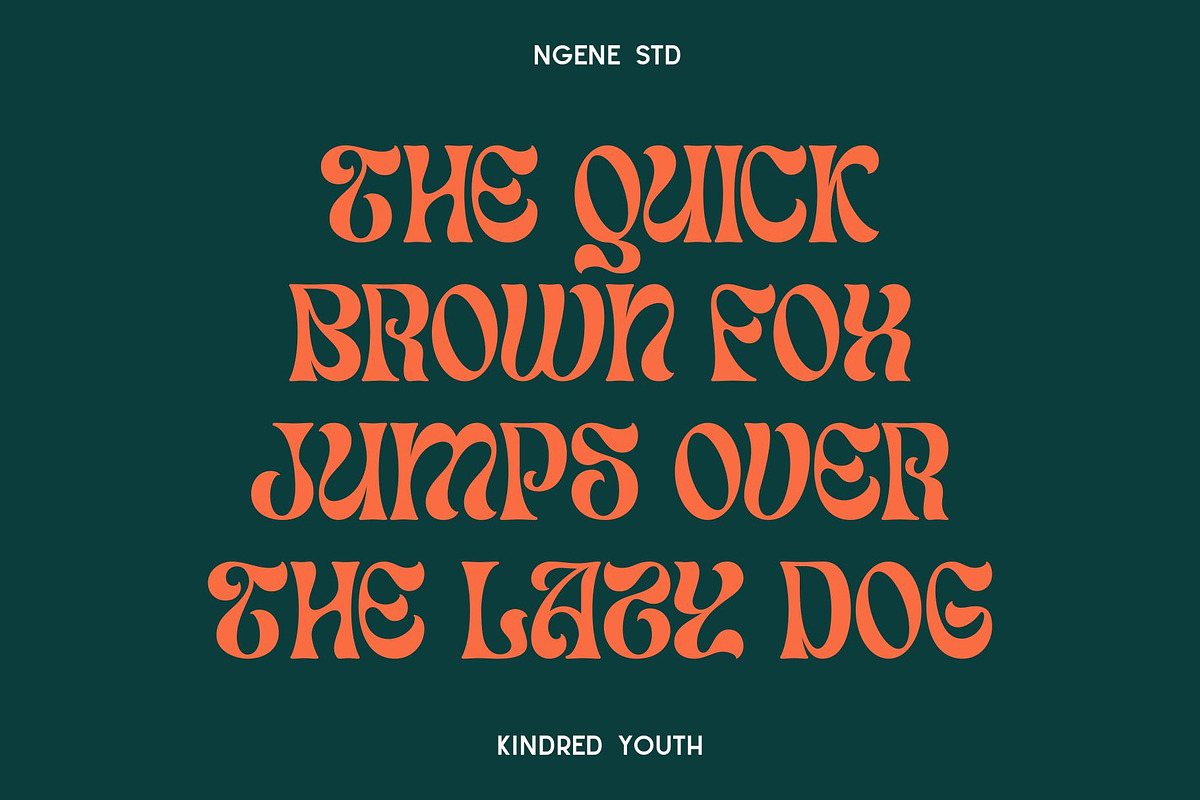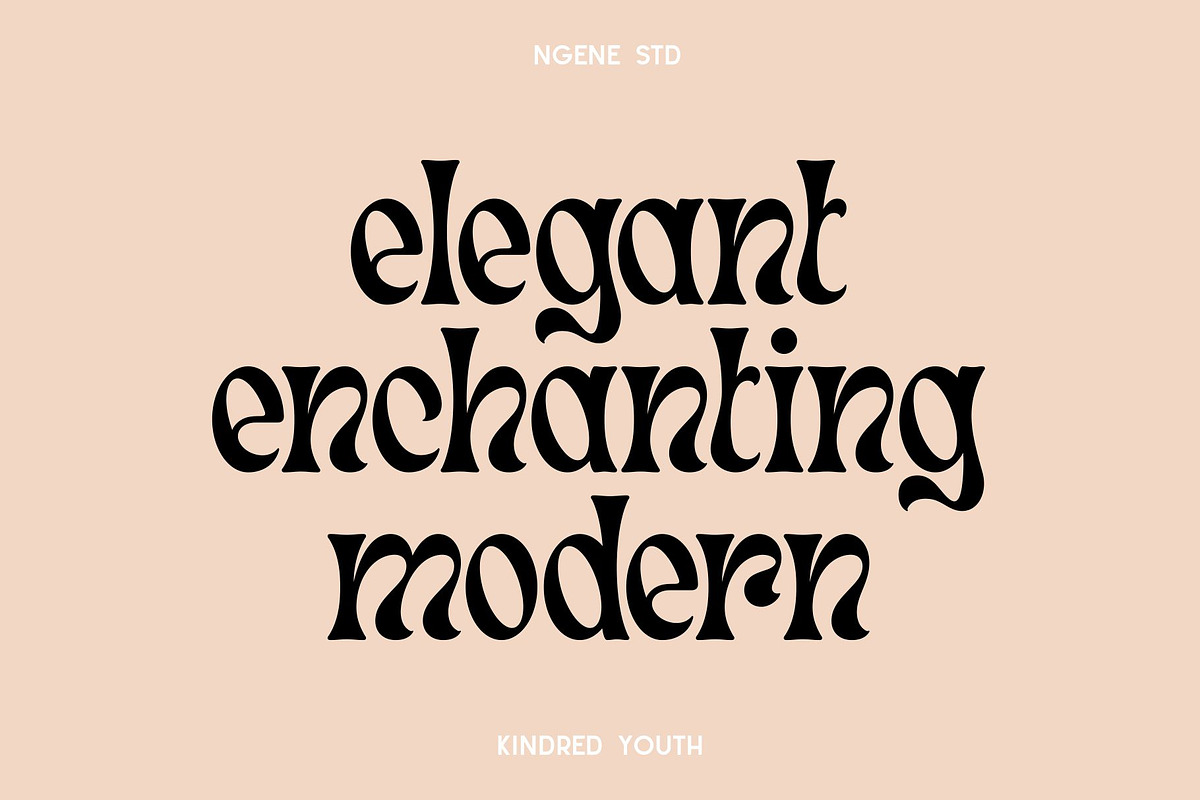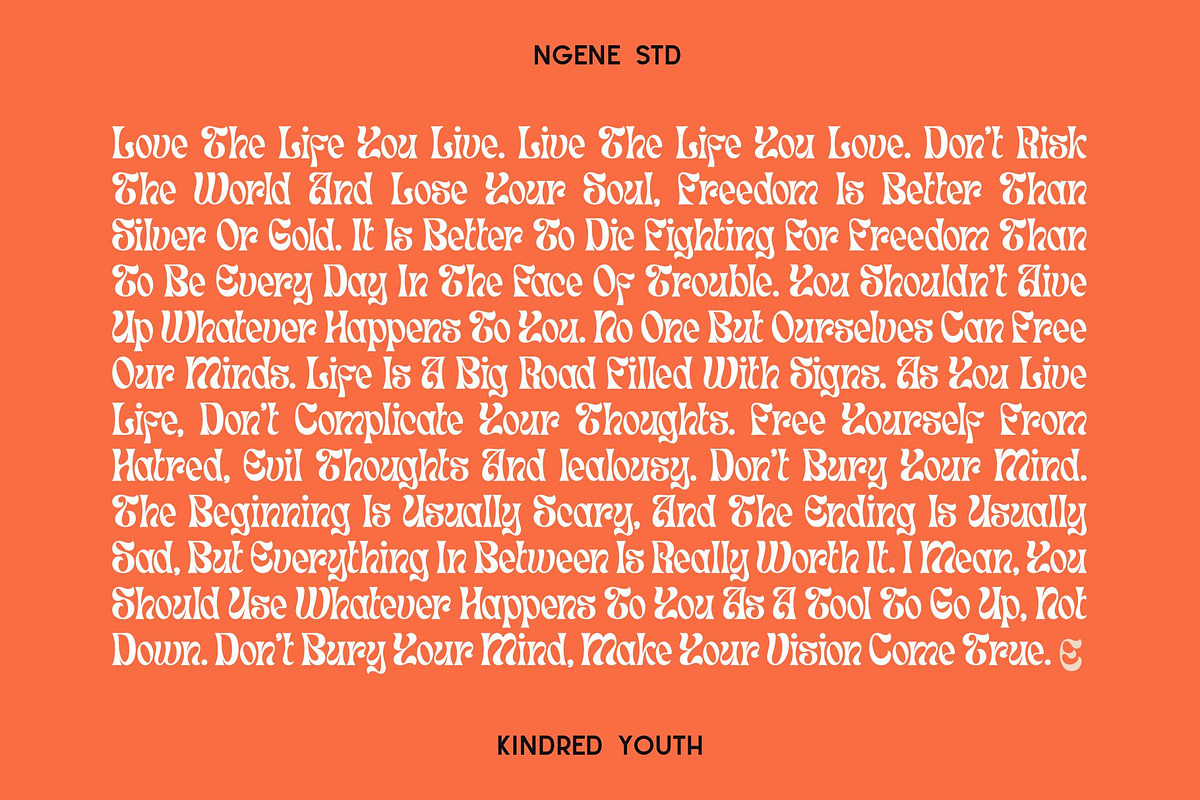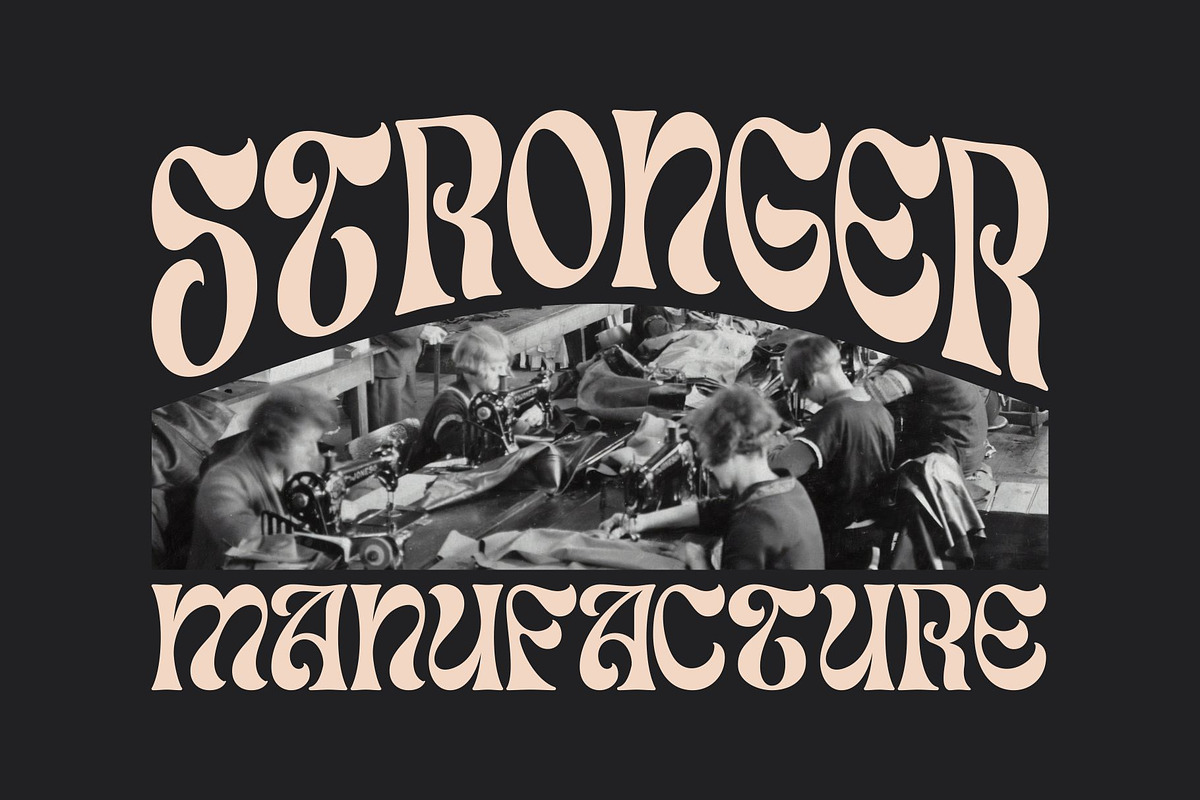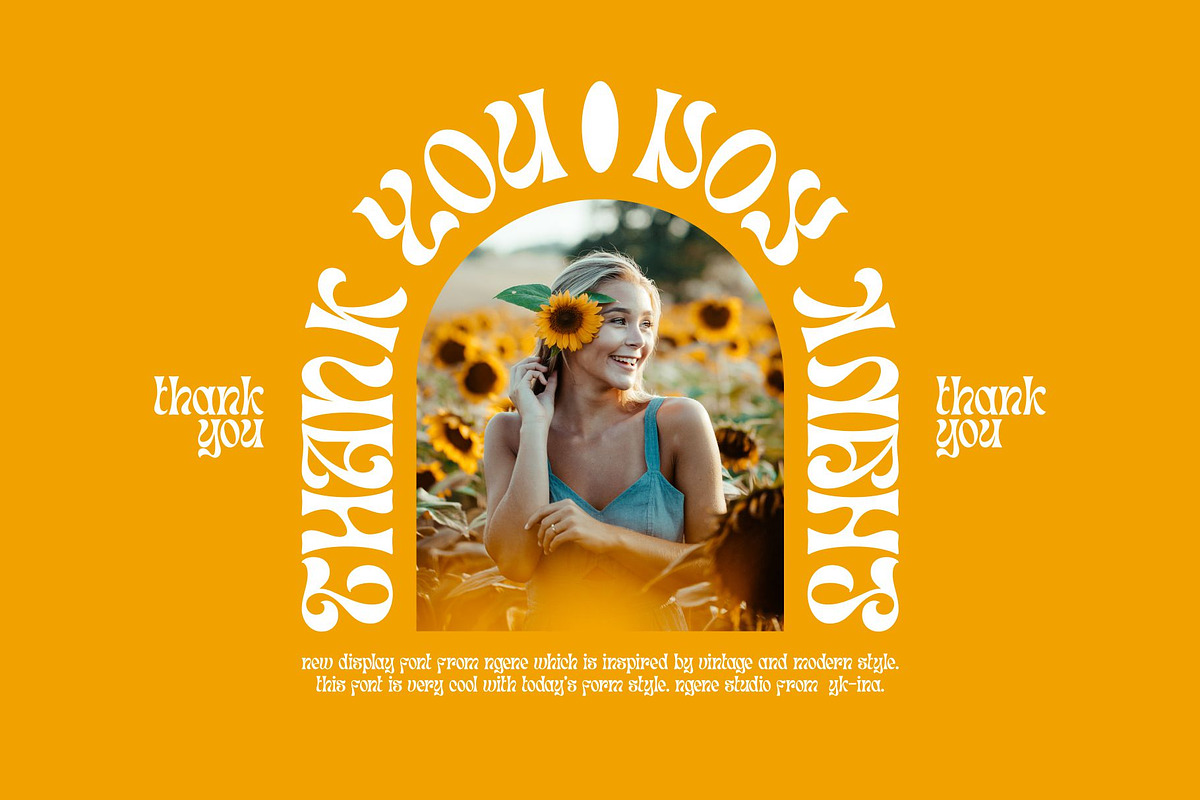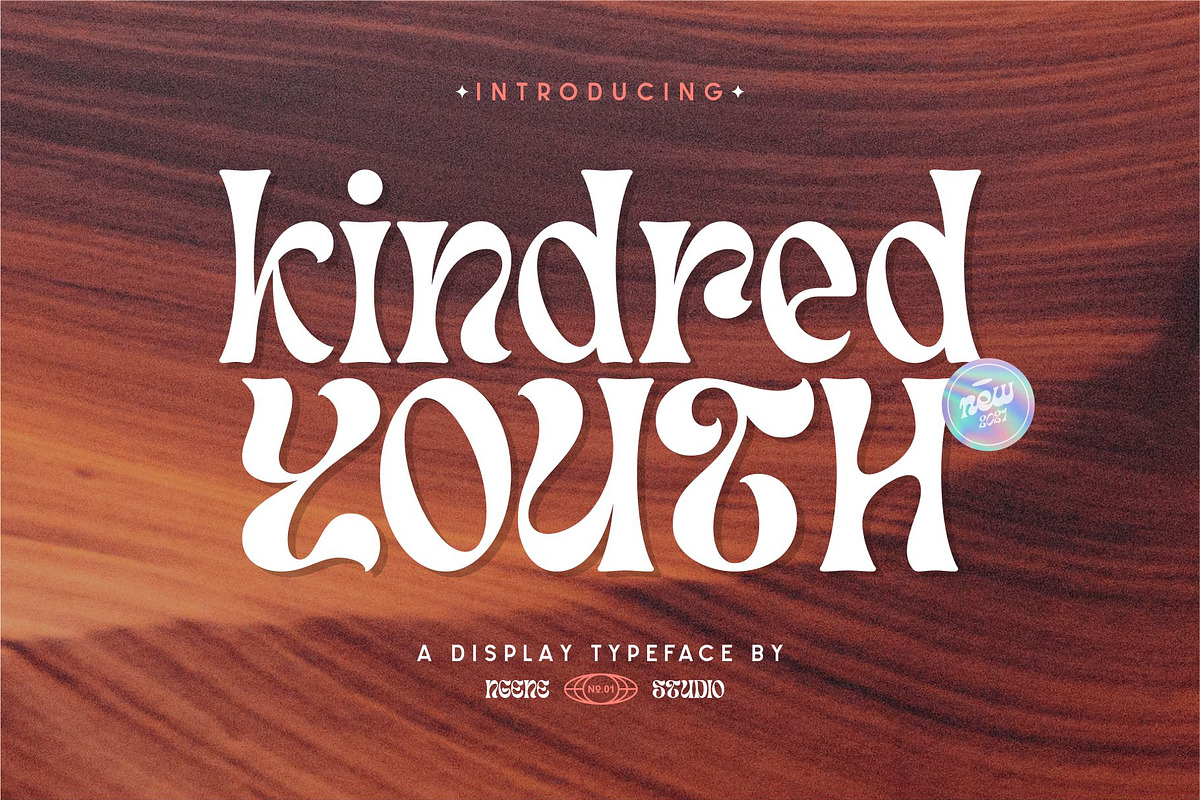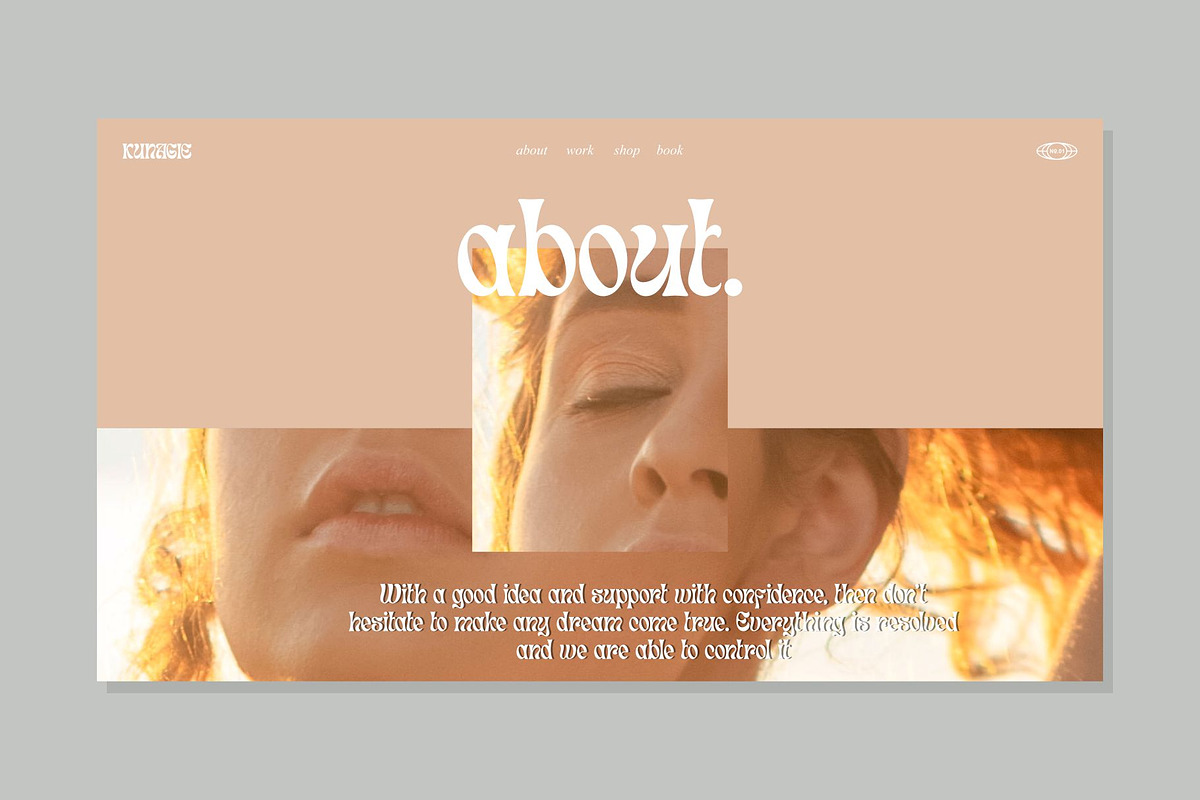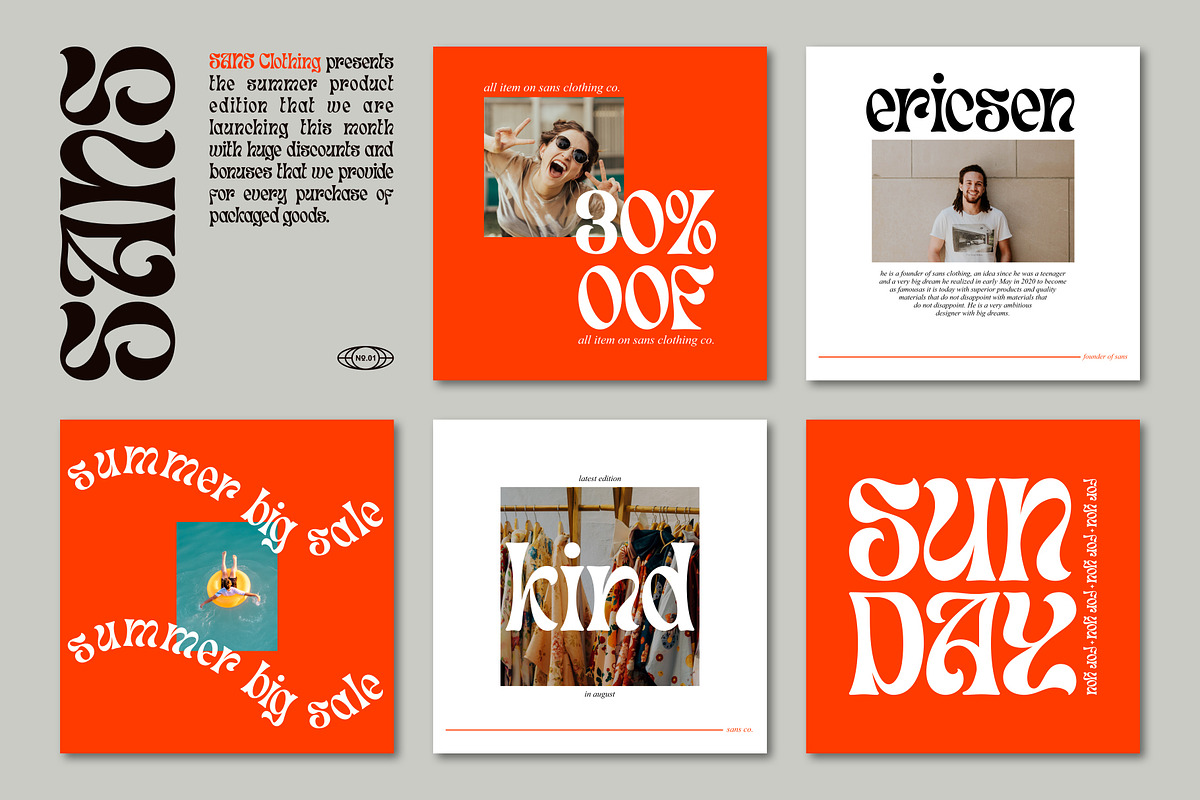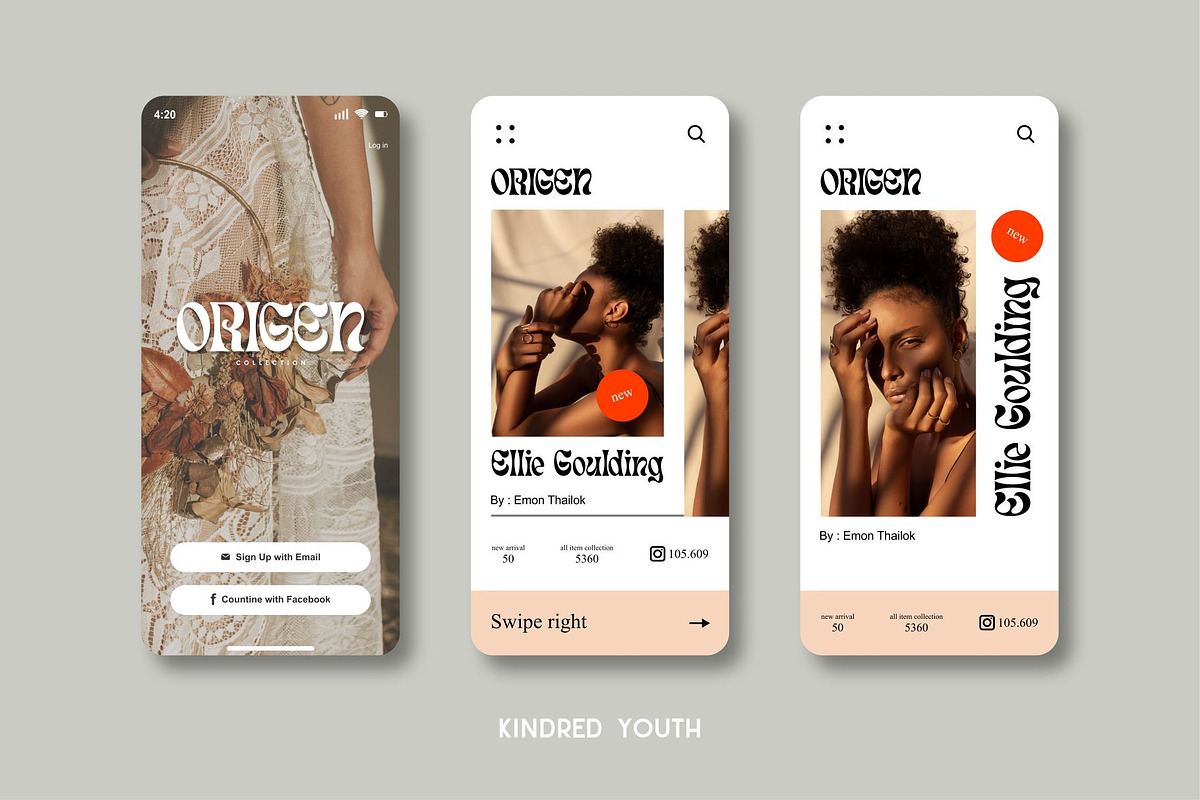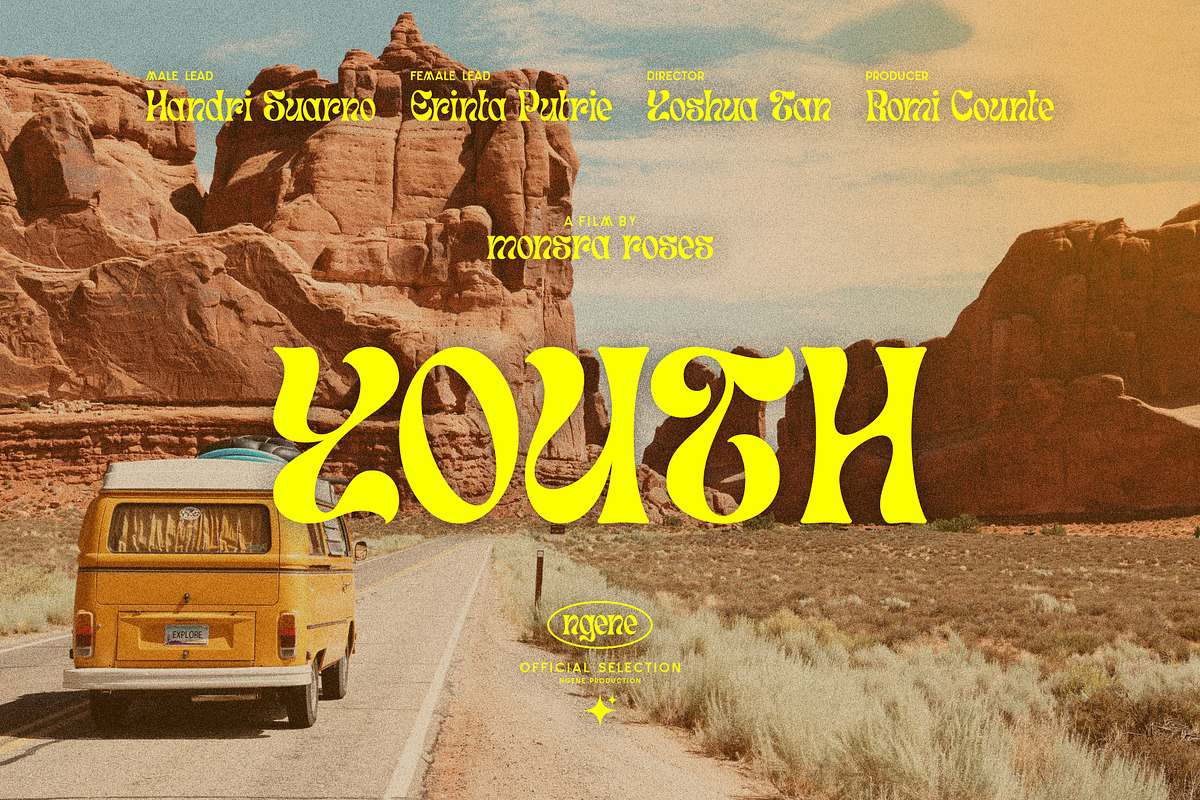
Kindred Youth
Kindred Youth font display from Ngene Studi which is inspired by the vintage style and the current modern font style, this font is perfect for beautifying your appearance in the form of logo fonts, lettering, tickets, instagram stories, labels, book titles and others.
You will be impressed with this new font style, this font also has multilingual support, making it easier for you to design in different countries using this font.